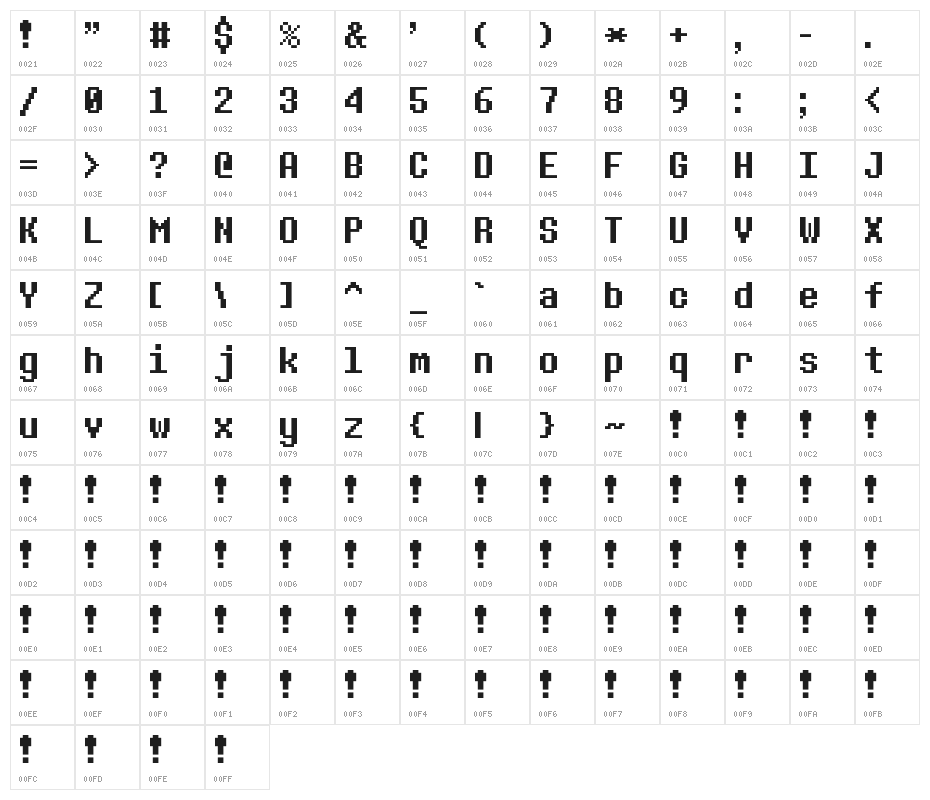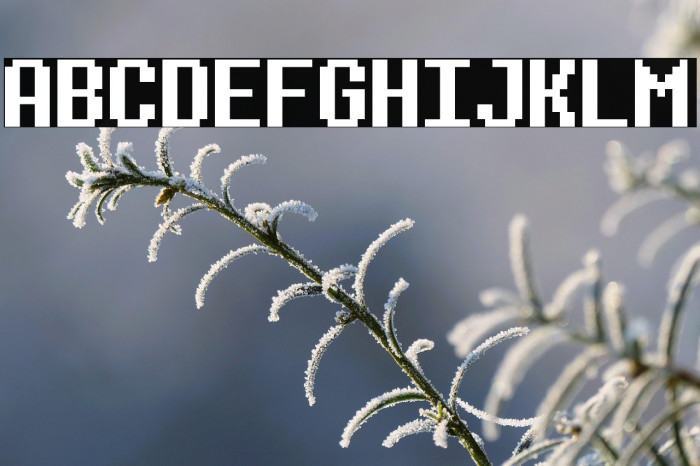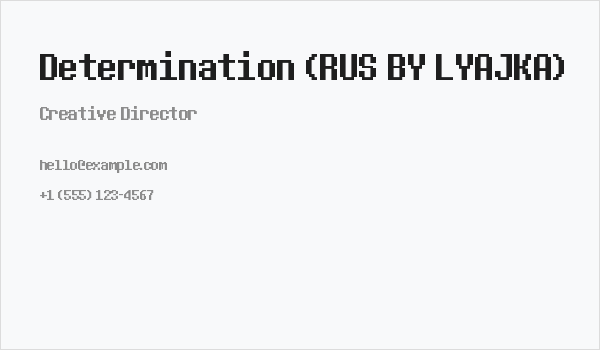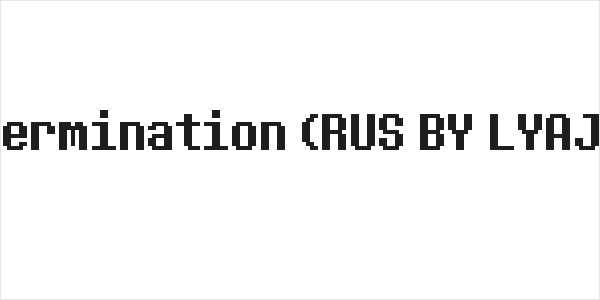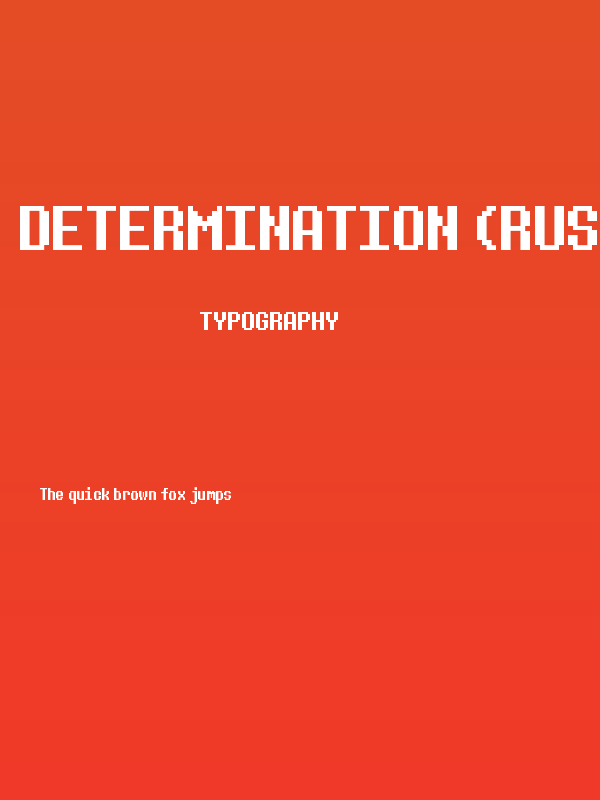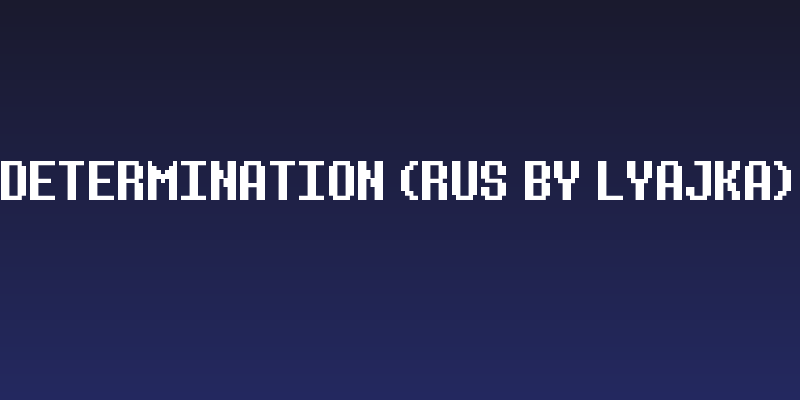
Determination (RUS BY LYAJKA) Font
| カテゴリ | Pixel |
| 全体的なスタイル | Retro, Digital |
| 用途 | Headlines, Logos, Digital Art |
| おすすめプロジェクト | Ideal for video game design, retro-themed posters, digital art projects, and any creative work that seeks to evoke a sense of nostalgia. |